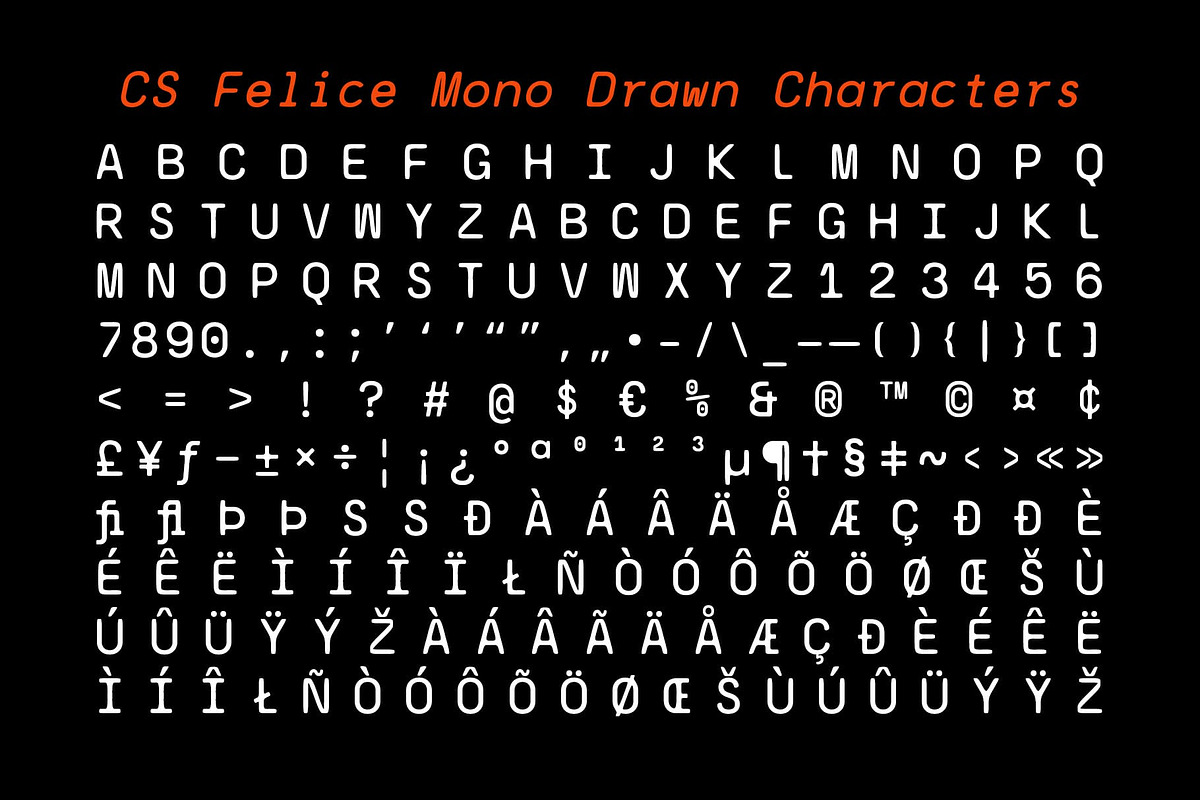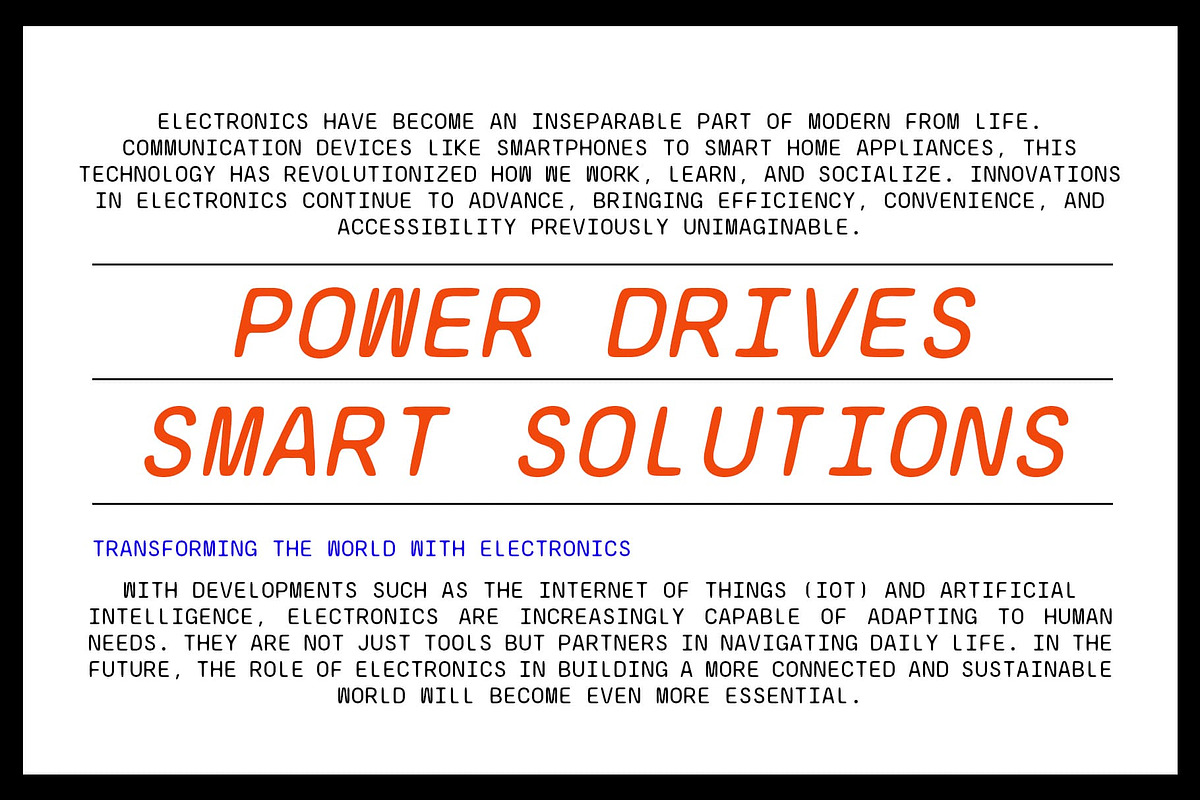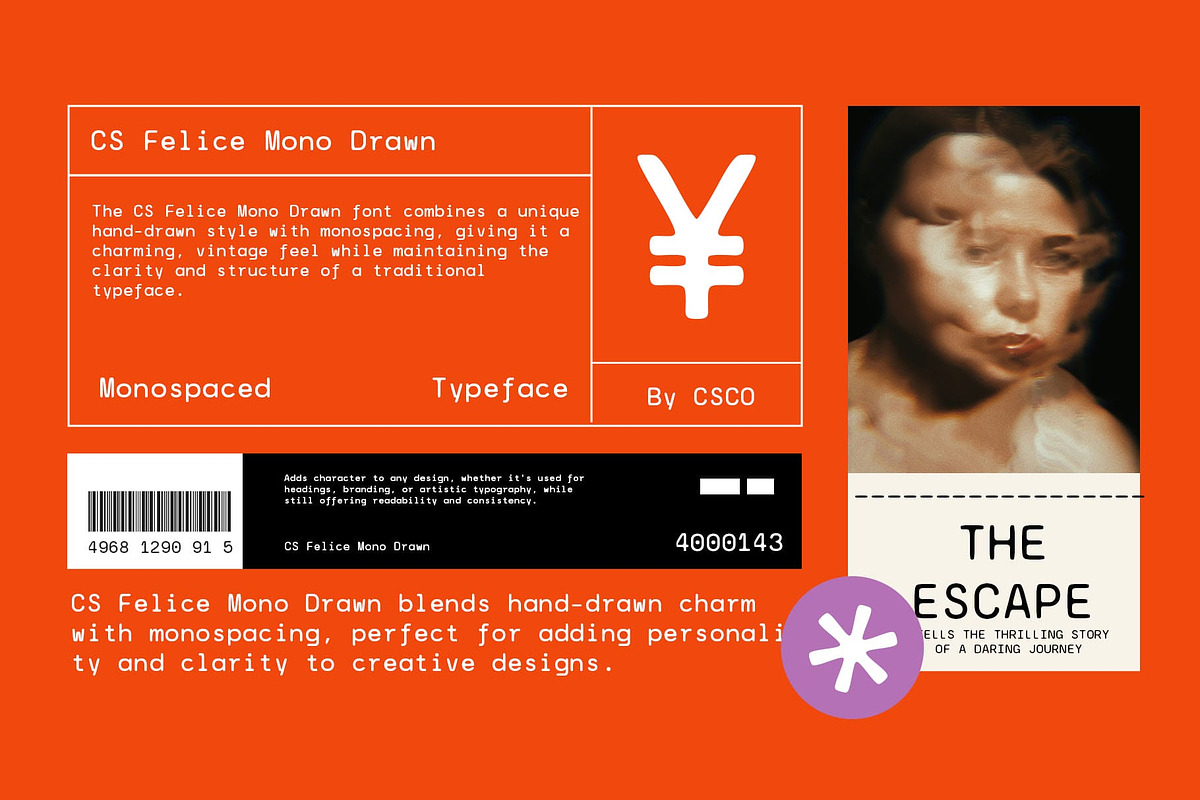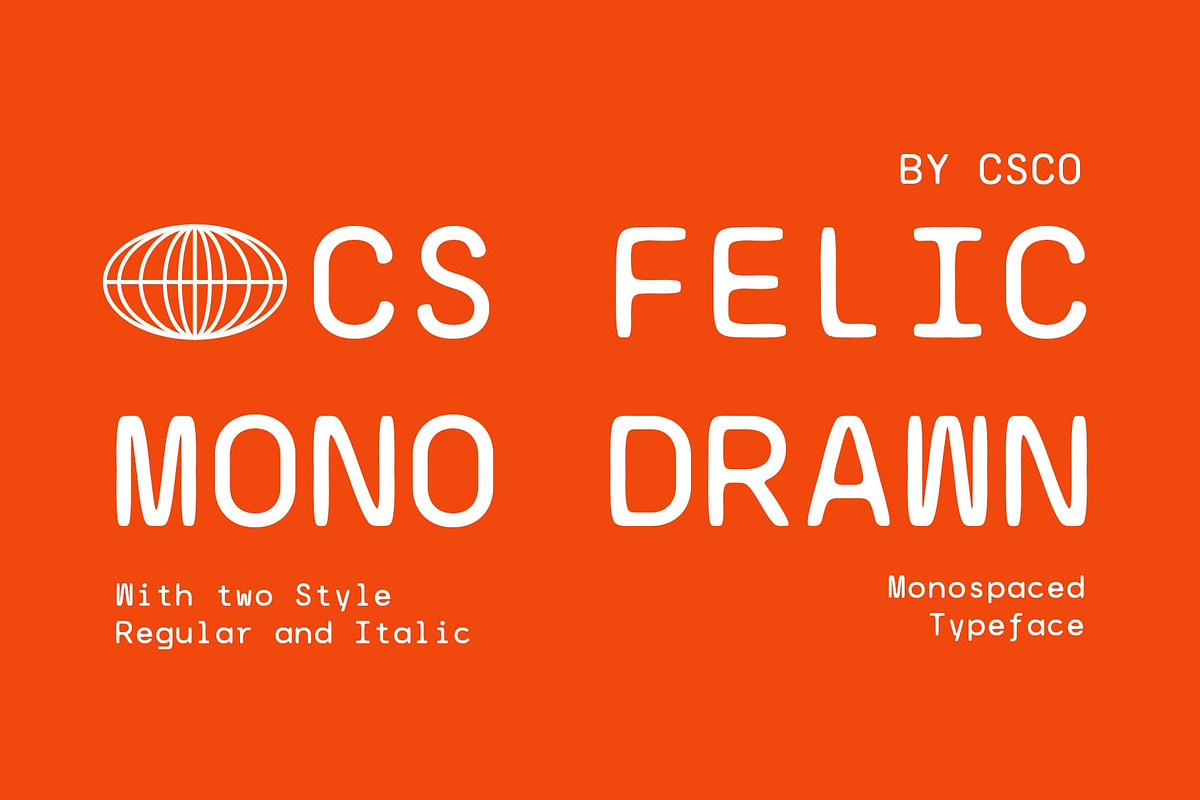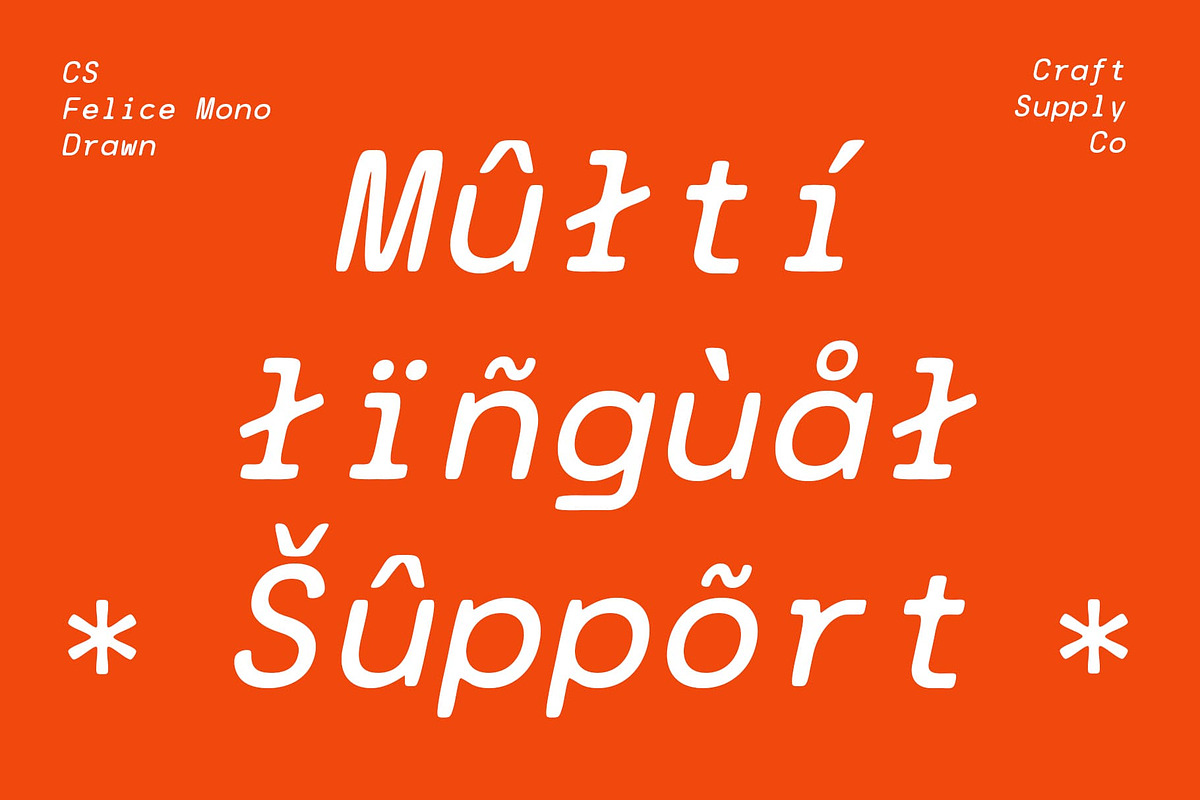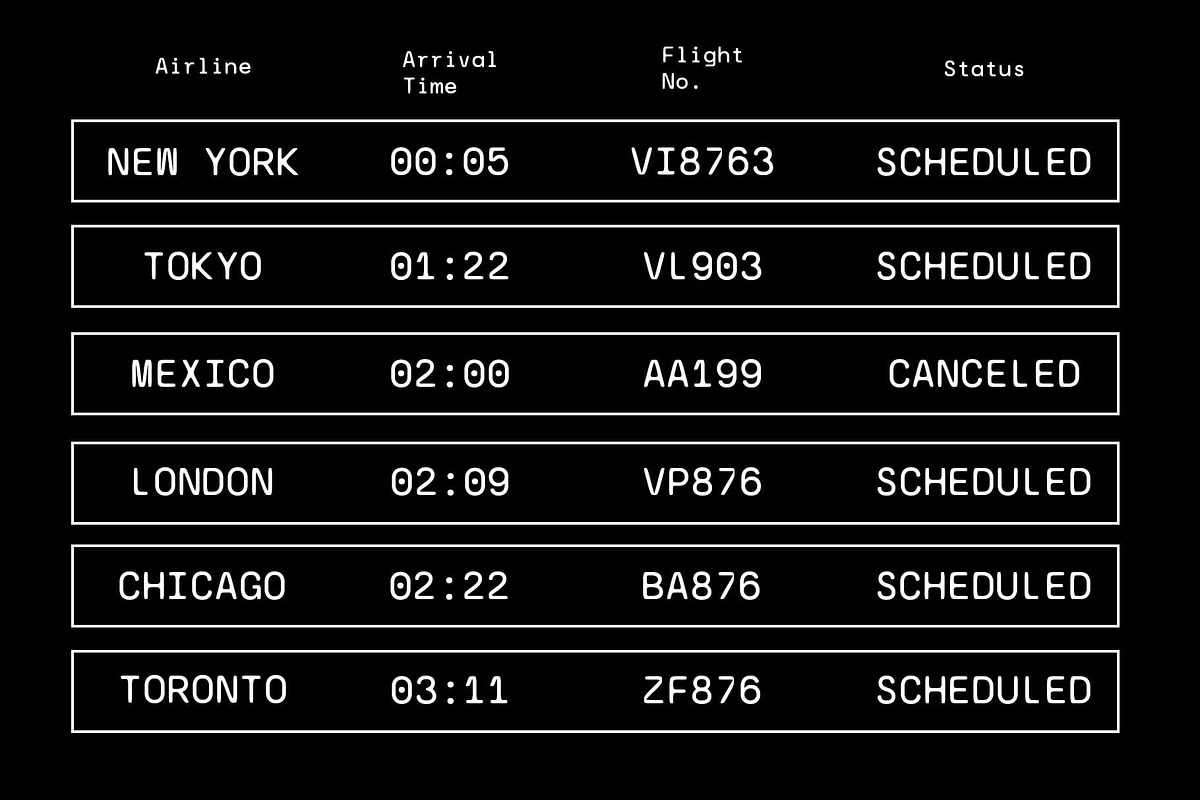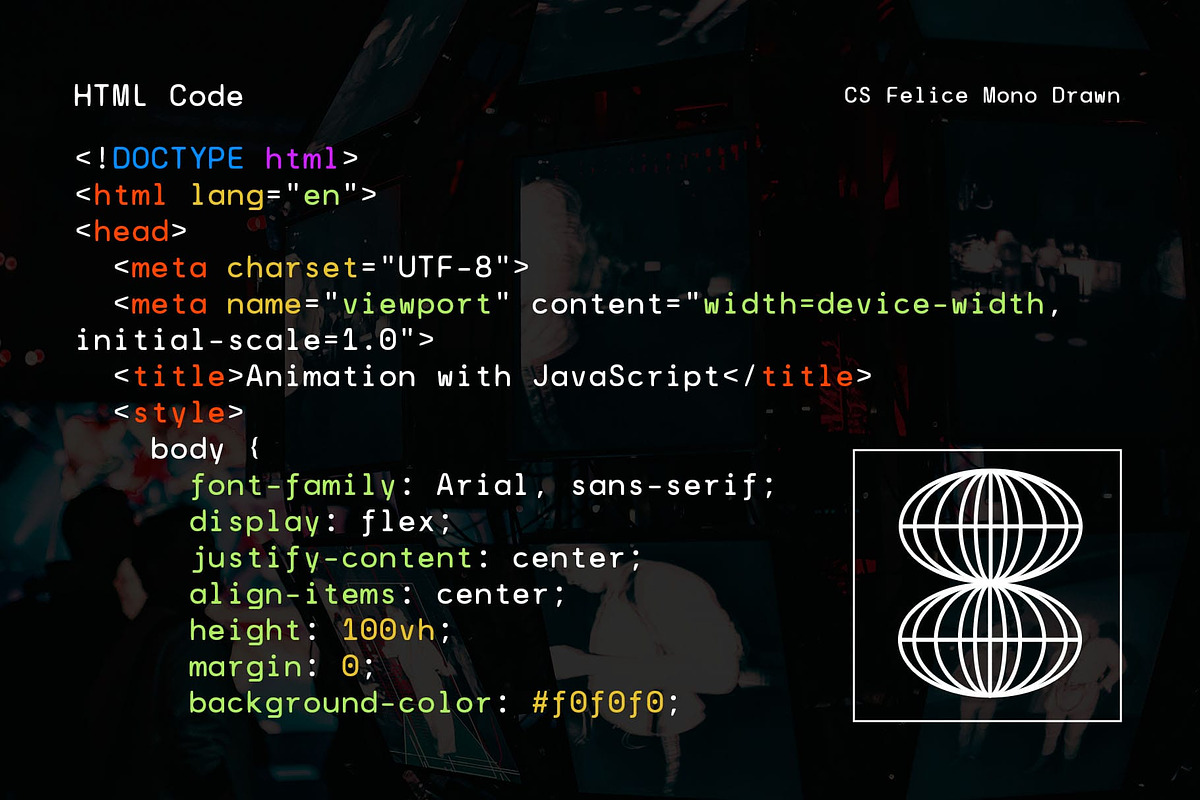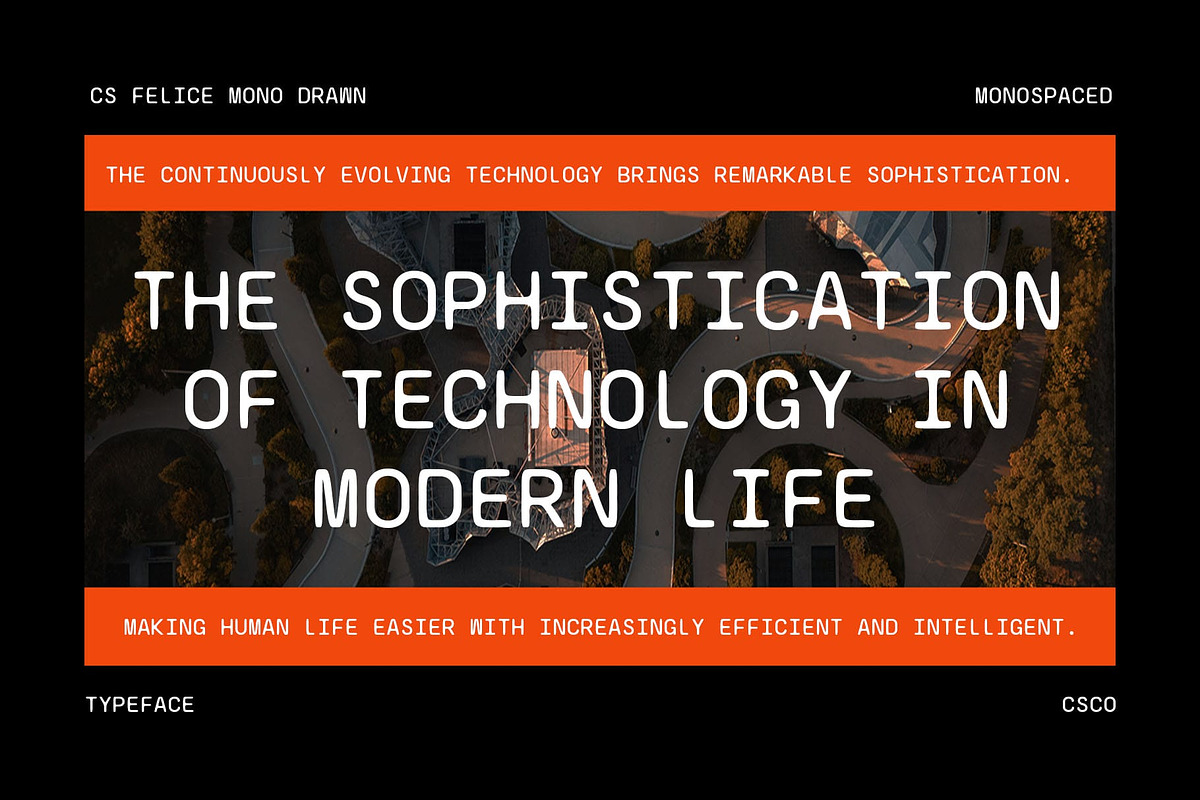
CS Felice Mono Drawn
CS Felice Mono Drawn – A Fusion of Precision and Artistic Flair
Structured and Artistic Design This font is a modern sans-serif font that masterfully combines the disciplined, uniform design of a monospaced font with the lively charm of a hand-drawn effect. Each character is crafted with equal width, ensuring a consistent and orderly appearance that enhances readability and structure.
A Creative Twist with Drawn Effects The drawn effect introduces a hand-sketched quality, characterized by organic, imperfect lines that infuse the font with dynamic visual texture. This artistic touch breaks the rigidity of traditional monospaced fonts, offering a creative, humanized aesthetic while preserving its neat and organized form.
Versatility in Design Applications This monospaced font with drawn effect is perfect for projects that demand both functionality and artistic expression. It excels in coding-related visuals, tech-inspired designs, or any creative projects that seek to add a touch of individuality and warmth to a structured format. Whether used in branding, editorial layouts, or digital interfaces, this font delivers a harmonious blend of technical precision and artistic freedom.
Balance of Function and Creativity This font’s ability to pair clean, monospaced proportions with hand-drawn artistry makes it a standout choice for designers seeking to balance formality with creativity. This monospaced font is the perfect solution for projects that require a fresh, innovative approach while maintaining readability and order.